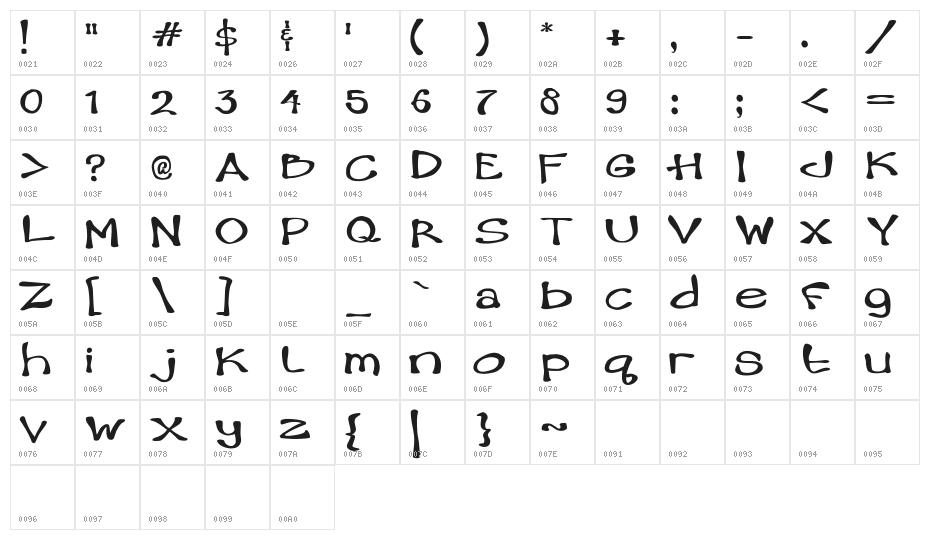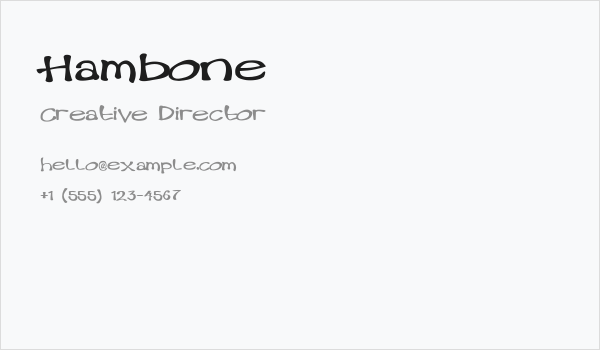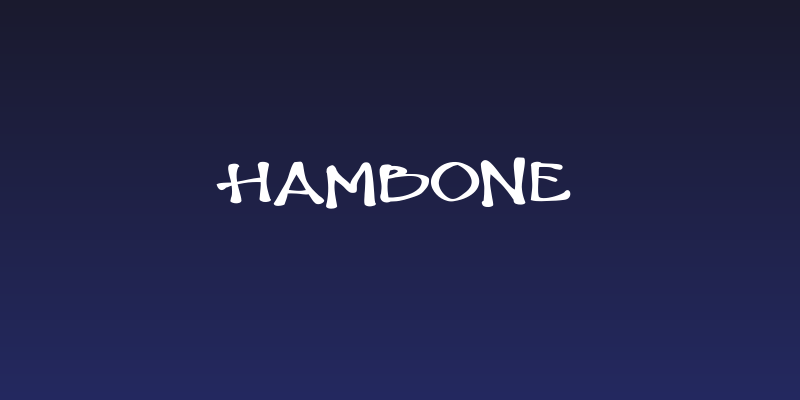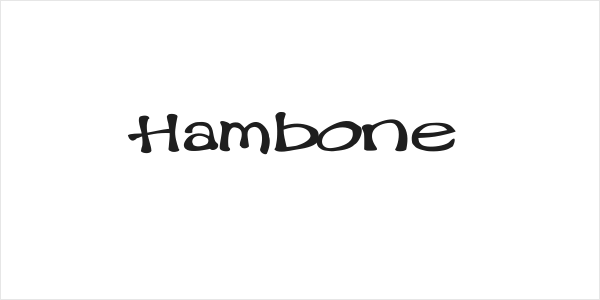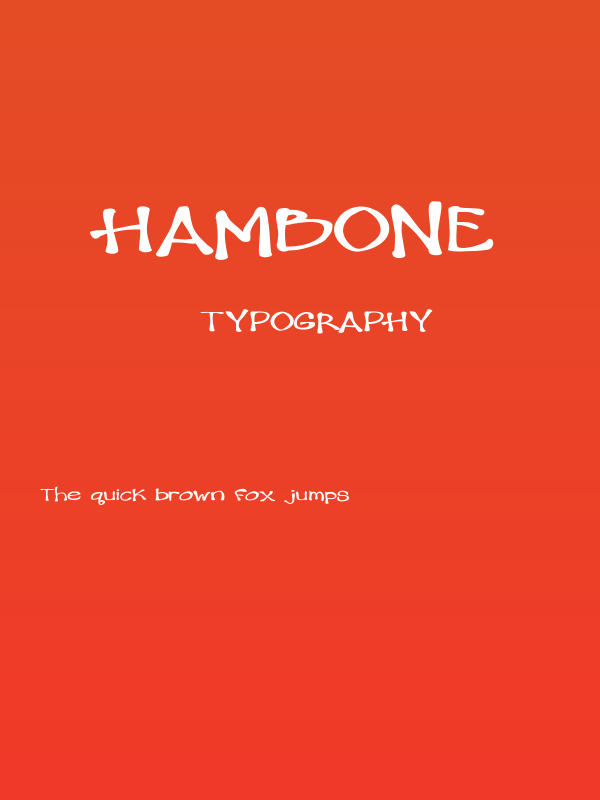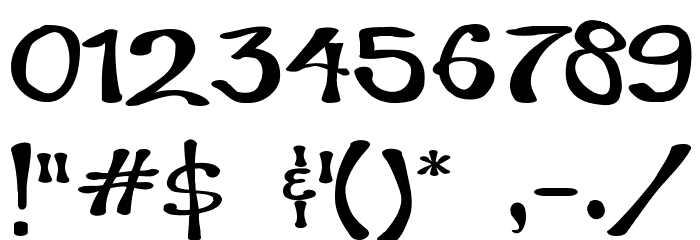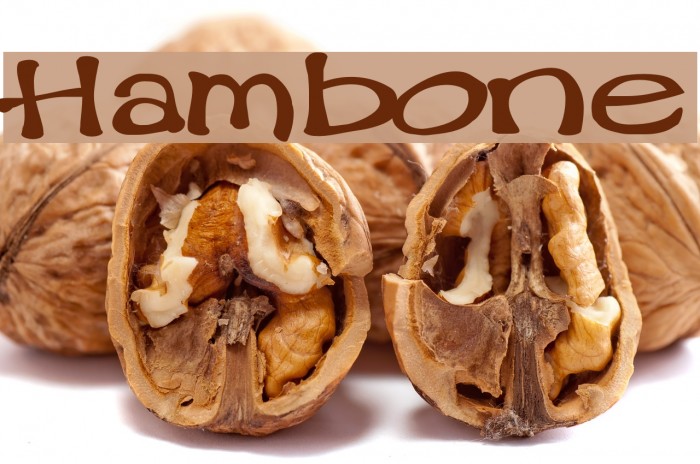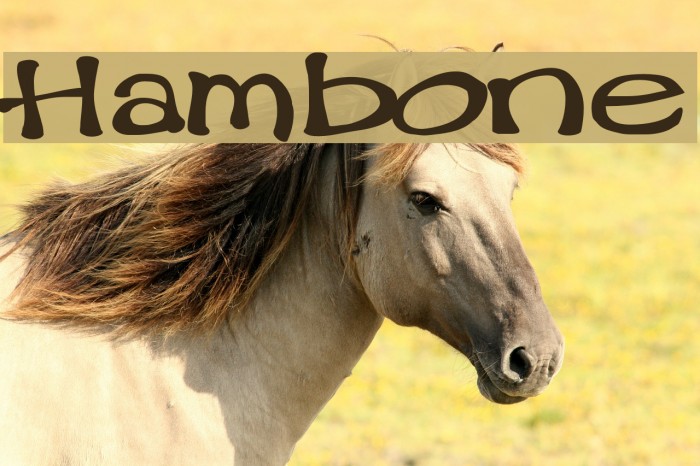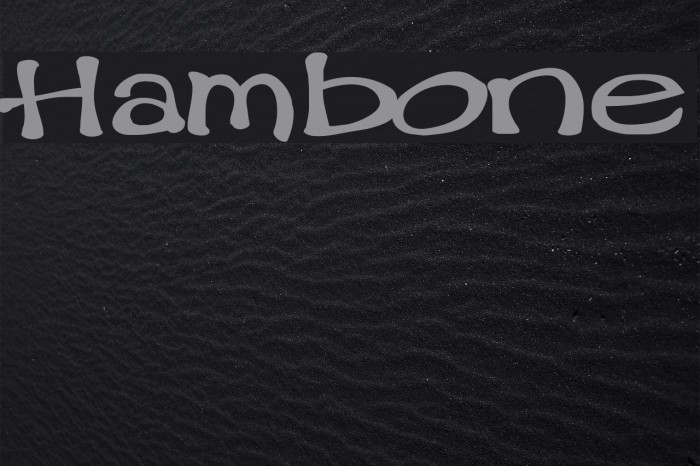
Hambone Font
Hambone Description
This playful and whimsical font features a handwritten style with a casual, friendly appearance. The letters are slightly irregular, giving it a natural and organic feel. The strokes are bold and rounded, providing a sense of warmth and approachability. The uppercase and lowercase letters maintain a consistent style, with the lowercase letters exhibiting a slightly more relaxed form. Numbers and special characters are designed to match the overall aesthetic, ensuring a cohesive look across all text elements. This font is ideal for projects that require a personal touch or a fun, informal vibe.
| Overall Style | Playful, Casual |
| Proposed Projects | Ideal for children's books, greeting cards, playful branding, and informal invitations. |